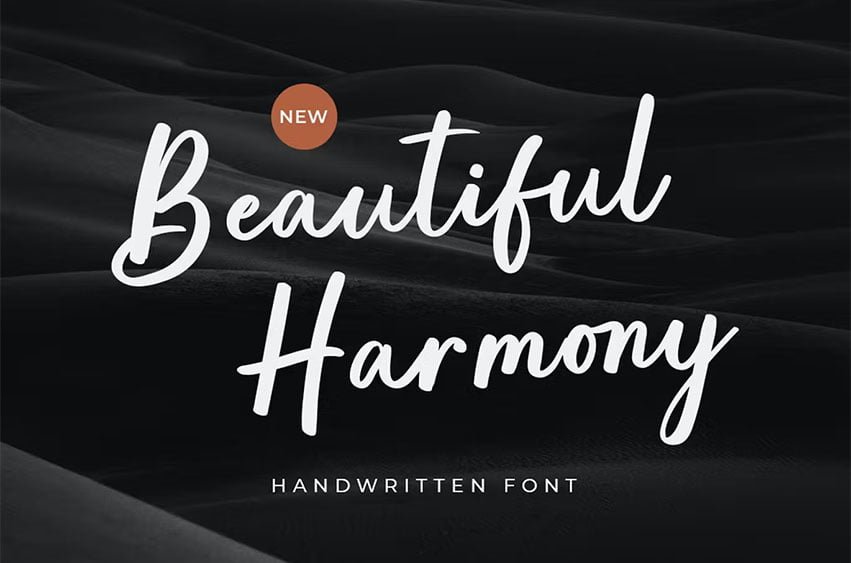
Beautiful Harmony Font
Beautiful Harmony Font Handwritten Script Font. Beautiful Harmony is a cool and casual handwritten font, Add it to any of your creative projects, and they will capture everyone’s attention!